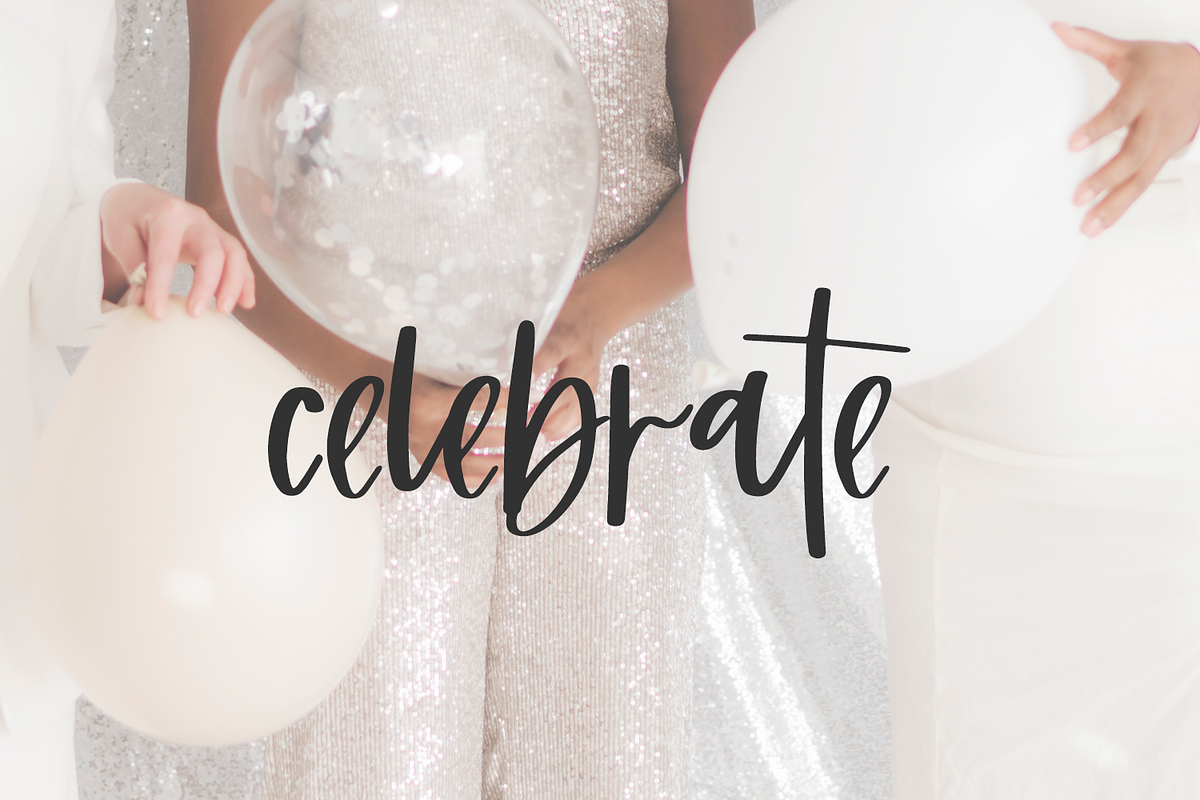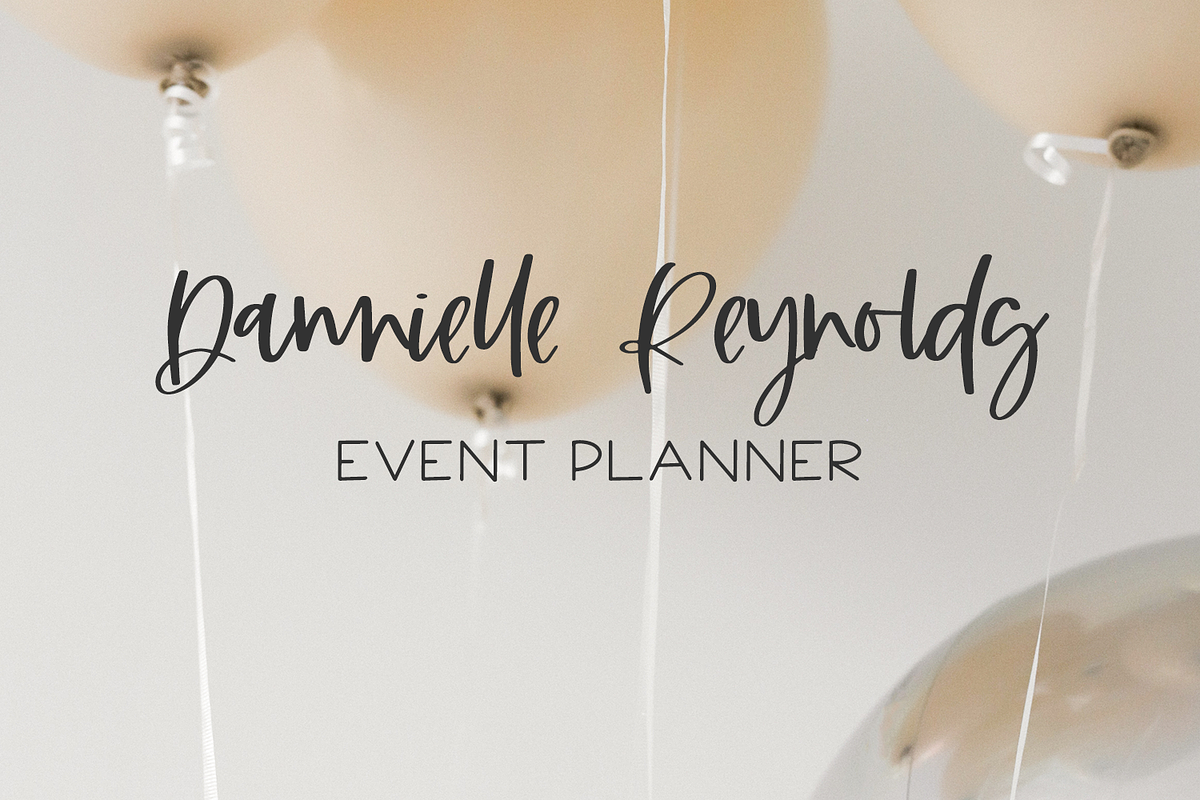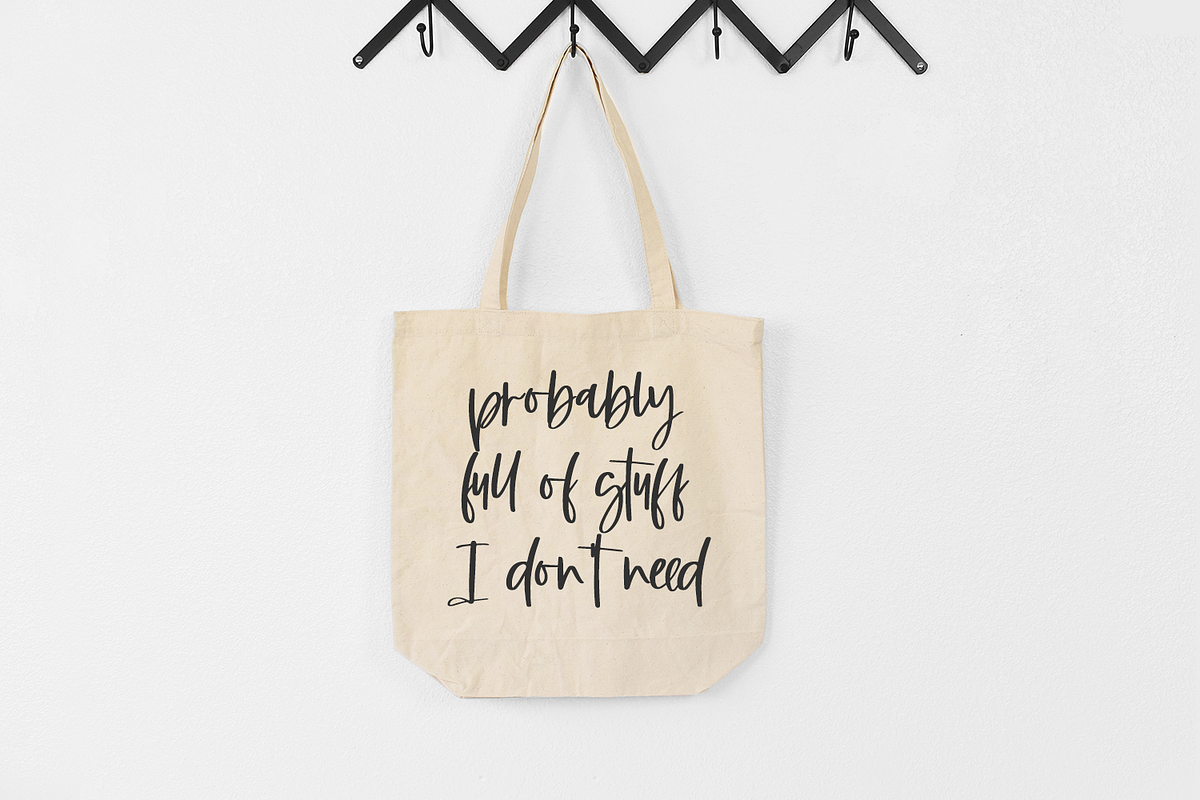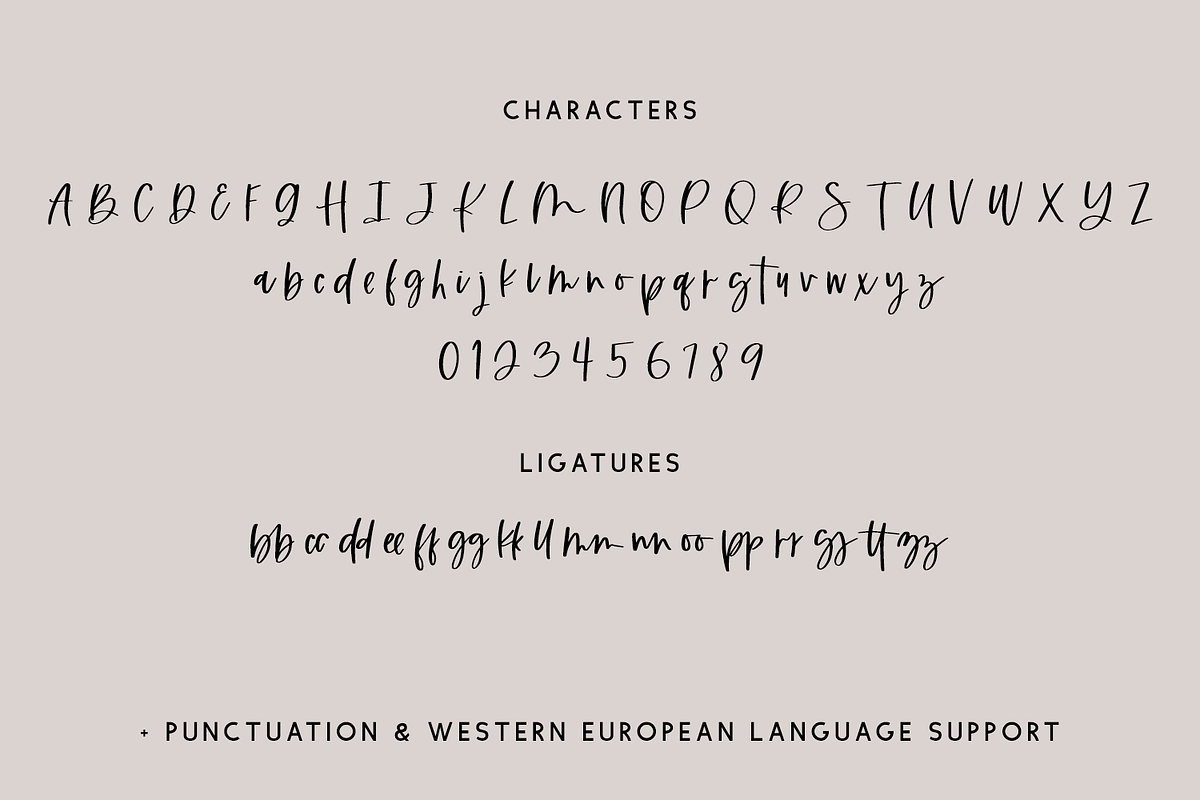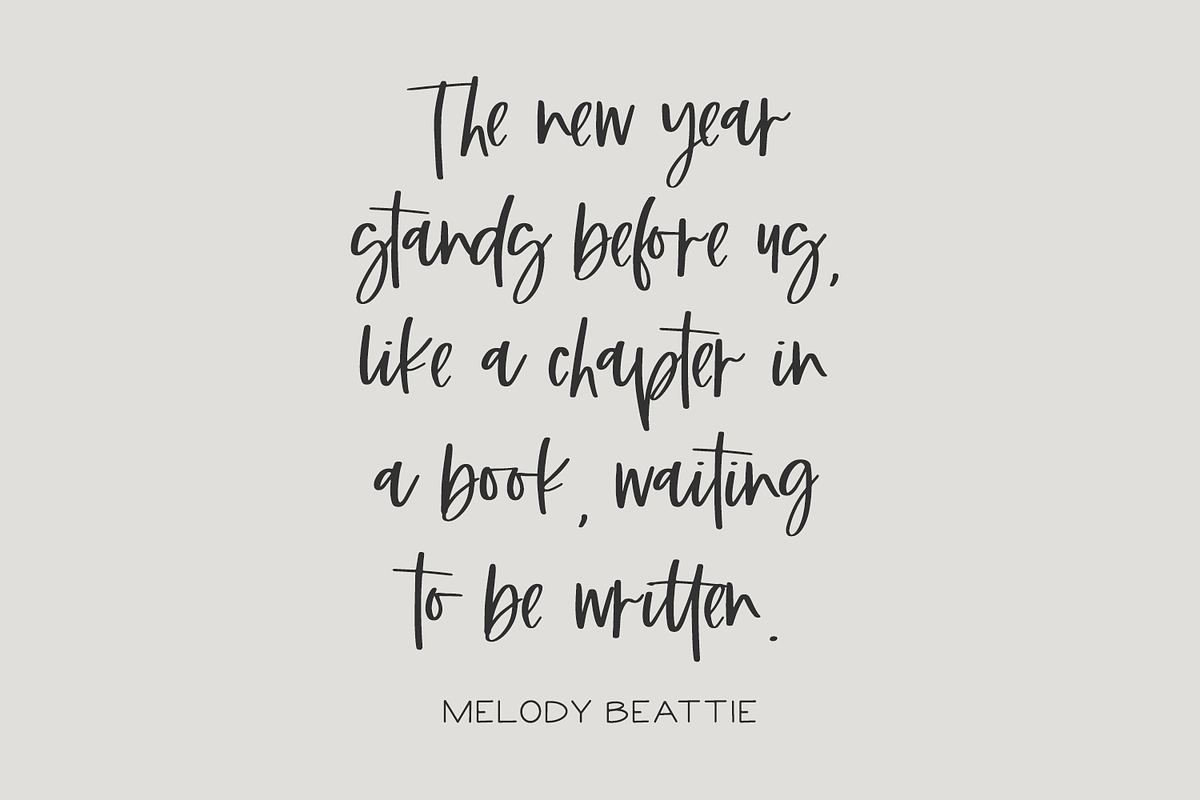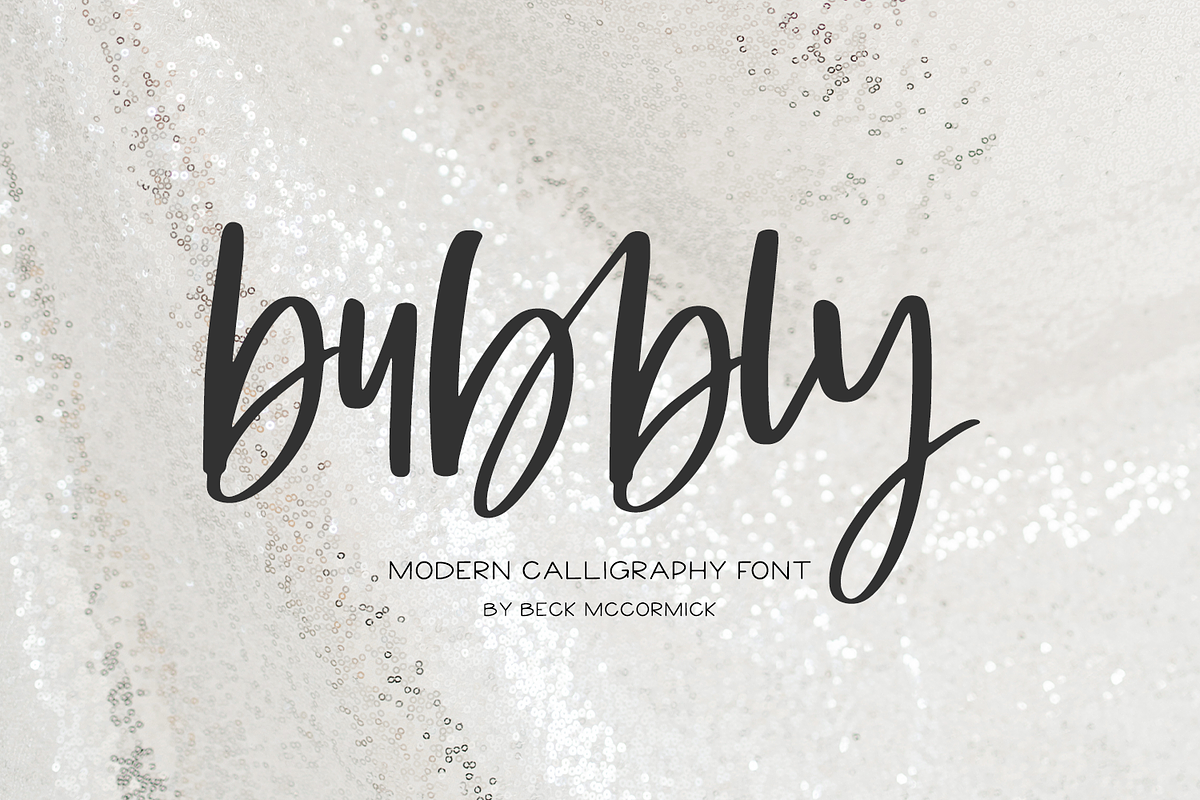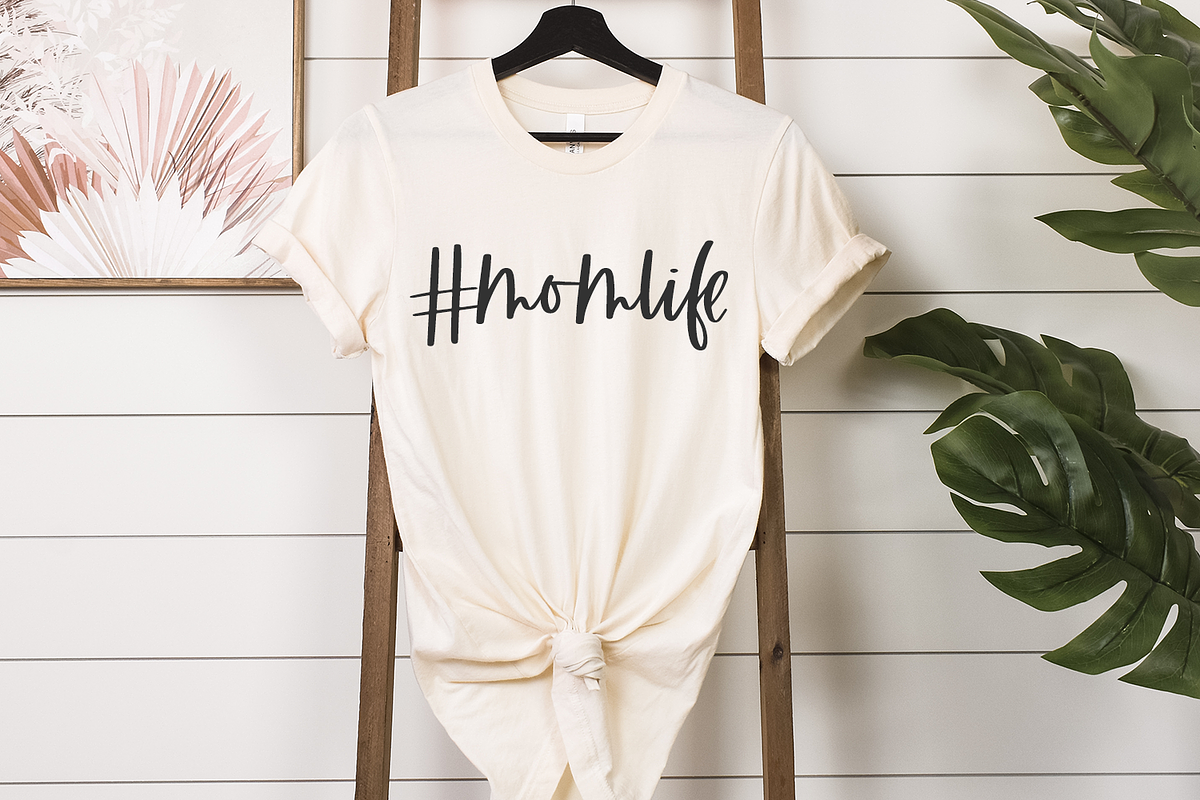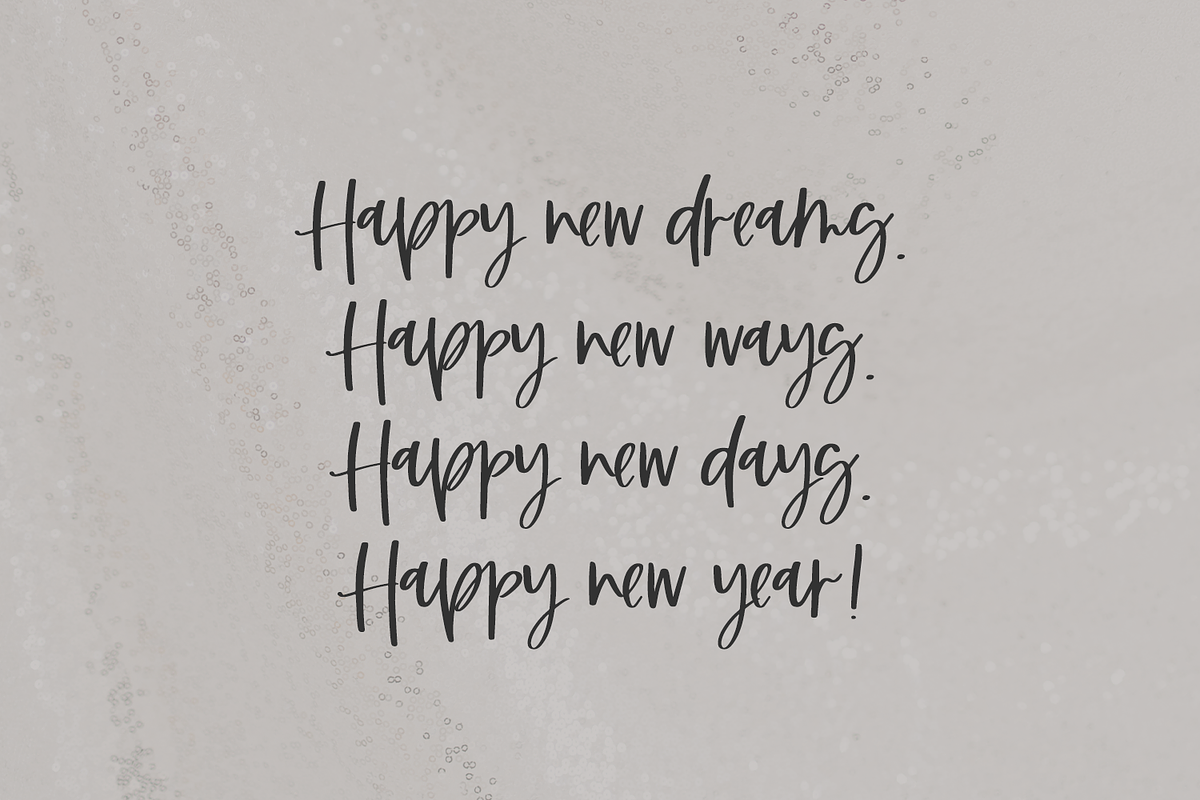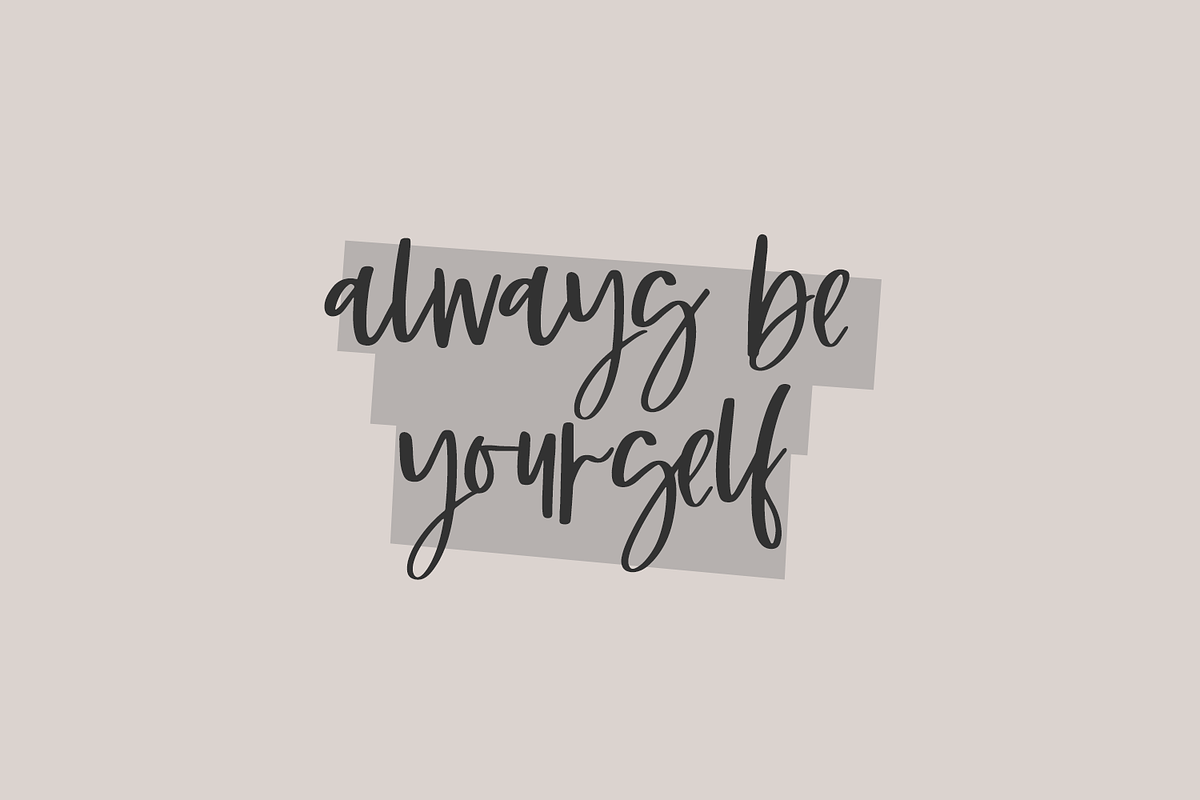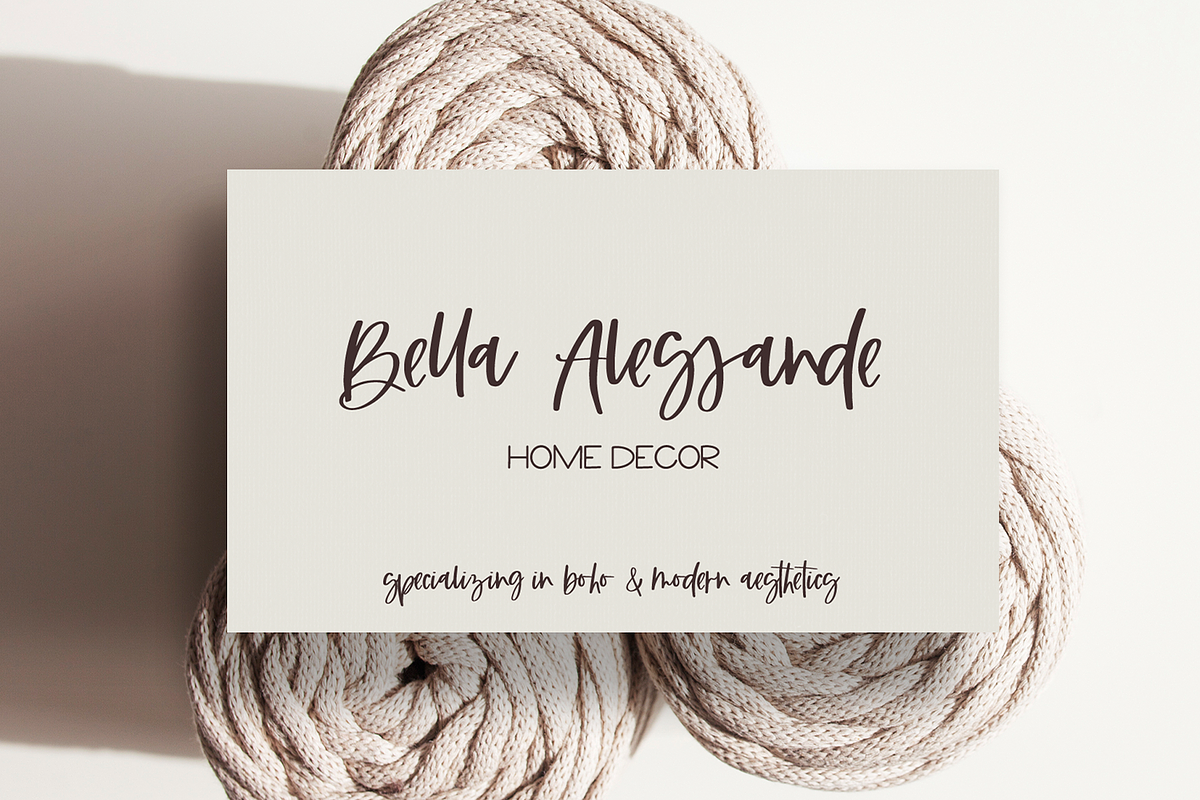
Bubbly Script
Introducing Bubbly, a modern handwritten script. Bubbly has an organic, signature-style aesthetic making it perfect for projects requiring a handwritten touch.
Bubbly is best for:
- modern farmhouse decor and crafts
- logos + branding
- website design + website accents, blog design
- clean print design, like magazines + flyers
- header elements that need handwritten touch
- quote graphics for social media
- feminine graphic tee shirt design & other apparel
- Christmas projects like cards & gift tags
Bubbly includes:
- full upper + lowercase characters
- numbers + punctuation
- Western European Language Support
- 16 ligatures - bb, cc, dd, ee, ff, gg, kk, ll, mm, nn, oo, pp, rr, ss, tt, zz